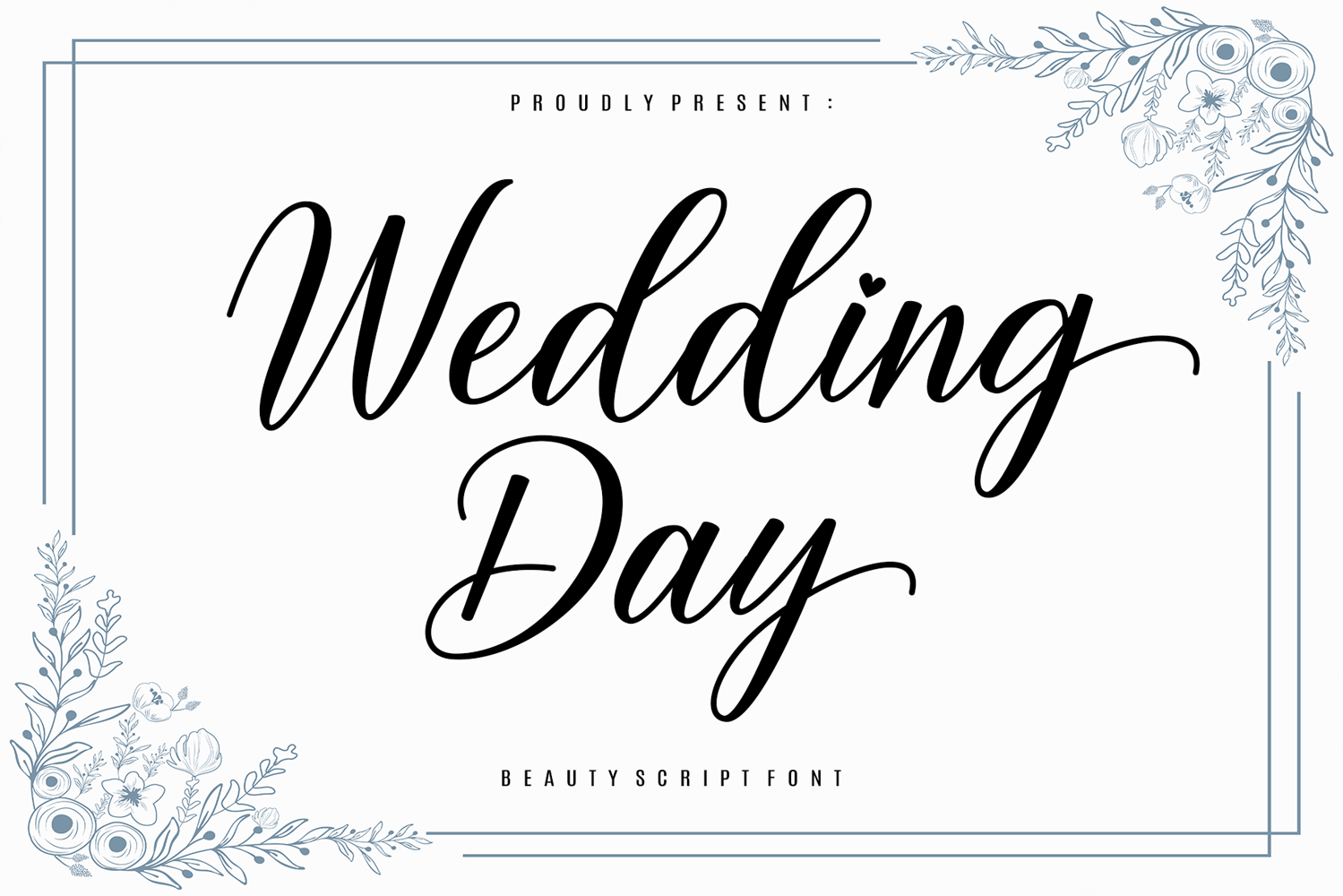
Wedding Day
Wedding Day is a captivating script font that exudes beauty and sentimentality. Gracefully designed, its delicate letterforms are the embodiment of timeless devotion. Perfect for creatives in search of a tender and indulgent touchWedding Day speaks directly to the heart—transforming ordinary words into extraordinary emotions.